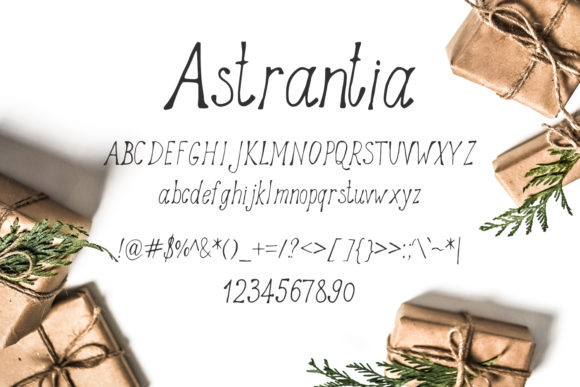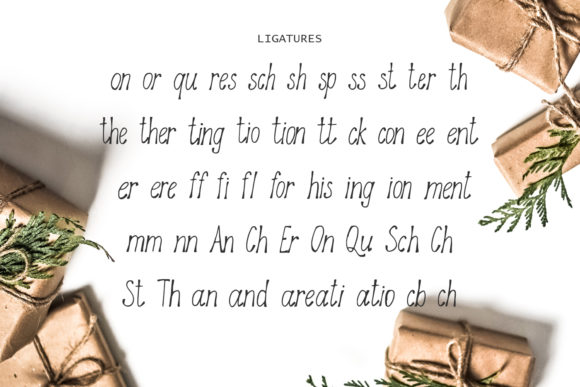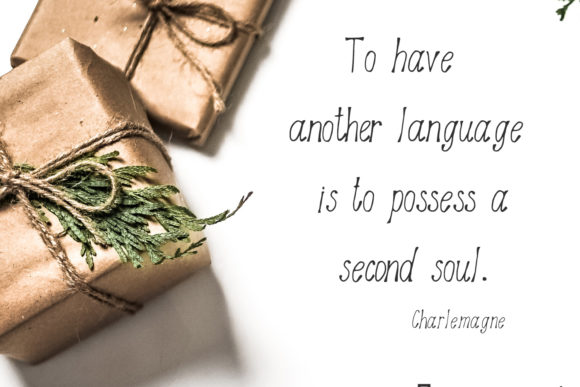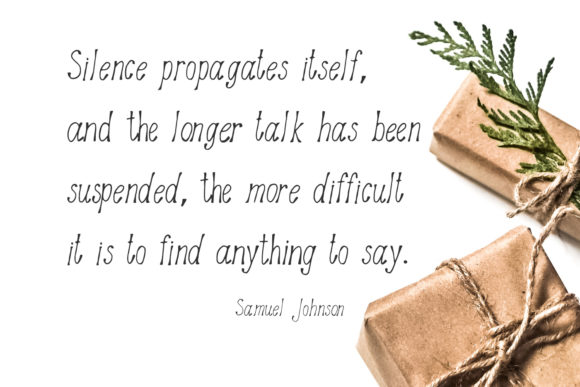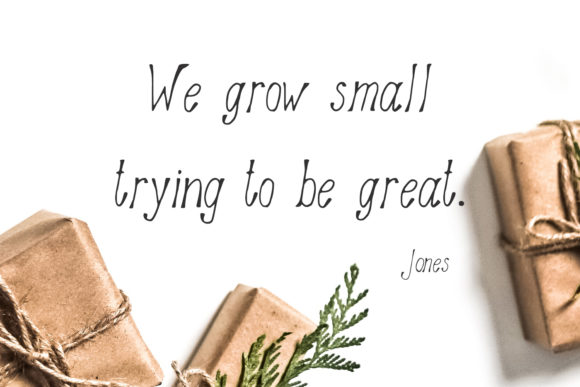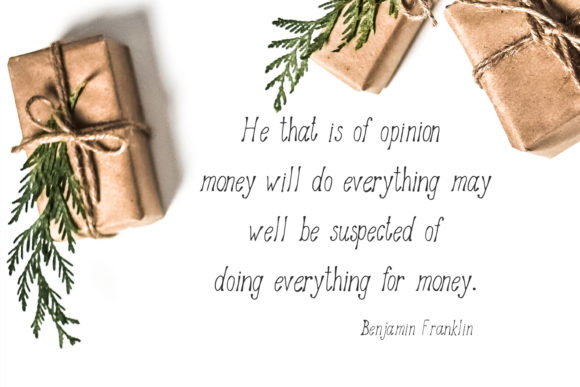
Astrantia Font: The Sweet and Delicate Handwritten Font for Romantic Designs
Are you a designer or crafter looking for a font that can add a touch of romance and personality to your designs? Look no further than the Astrantia Font! This sweet and delicate handwritten font is perfect for creating wedding invitations, cards, and other designs that require a personal and loving touch.
What is Astrantia Font?
Astrantia Font is a beautiful, handwritten font that is characterized by its dainty and joyful appearance. The font is designed to resemble handwriting, with each letter and word carefully crafted to create a sense of elegance and sophistication. The font is highly versatile and can be used for a wide range of design projects, from wedding invitations and cards to branding and packaging.
Key Features of Astrantia Font
- Sweet and delicate appearance: Astrantia Font has a sweet and delicate appearance that makes it perfect for romantic designs.
- Handwritten style: The font has a handwritten style that gives it a personal and unique touch.
- Dainty and joyful: The font is dainty and joyful, making it perfect for designs that require a light and airy feel.
- Highly versatile: Astrantia Font can be used for a wide range of design projects, from wedding invitations and cards to branding and packaging.
Uses of Astrantia Font
Astrantia Font is perfect for designers and crafters who want to create romantic and personalized designs. Here are some of the most popular uses of the font:
- Wedding invitations: Astrantia Font is perfect for creating beautiful and elegant wedding invitations that set the tone for the big day.
- Cards: The font can be used to create a wide range of cards, from birthday and anniversary cards to thank-you cards and more.
- Branding and packaging: Astrantia Font can be used for branding and packaging projects that require a personal and unique touch.
- Stationery: The font can be used to create beautiful and elegant stationery, including letterheads, notebooks, and more.
Why Choose Astrantia Font?
There are many reasons why designers and crafters choose Astrantia Font for their projects. Here are a few:
- Unique and personalized: Astrantia Font has a unique and personalized style that sets it apart from other fonts.
- Elegant and sophisticated: The font has an elegant and sophisticated appearance that makes it perfect for romantic designs.
- High-quality design: Astrantia Font is designed to high standards, ensuring that it looks great in any design project.
Tips for Using Astrantia Font
Here are a few tips for using Astrantia Font in your design projects:
- Use it for headlines and titles: Astrantia Font is perfect for headlines and titles, where its elegant and sophisticated appearance can really shine.
- Pair it with other fonts: The font can be paired with other fonts to create a unique and interesting design.
- Experiment with colors and textures: Astrantia Font looks great in a wide range of colors and textures, so don’t be afraid to experiment and find the perfect combination for your design.
Astrantia Font is a beautiful and elegant handwritten font that is perfect for designers and crafters who want to create romantic and personalized designs. With its sweet and delicate appearance, highly versatile style, and ease of use, it’s no wonder that Astrantia Font is a popular choice for wedding invitations, cards, branding, and more. Whether you’re a professional designer or a crafter, Astrantia Font is a great addition to your font collection.